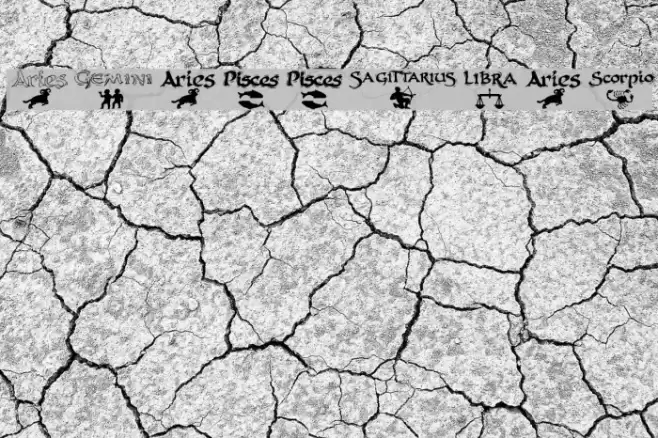
AstroCalligraphsTwo Font
AstroCalligraphsTwo Description
This font is a decorative and thematic typeface that incorporates astrological symbols alongside the names of zodiac signs. Each letter is crafted with a unique style that blends traditional calligraphy with modern design elements, creating a mystical and enchanting appearance. The font is characterized by its intricate details and artistic flair, making it ideal for projects that require a touch of whimsy and elegance. The inclusion of zodiac symbols adds a layer of thematic depth, making it perfect for astrology-related content or designs that aim to evoke a sense of wonder and curiosity.
A decorative font featuring zodiac symbols and calligraphic style from Uncategorized fonts.
- Proposed Projects: Ideal for astrology-themed posters, horoscopes, mystical event invitations, and decorative art projects.
- Use Case: Logos, Headlines, Decorative text